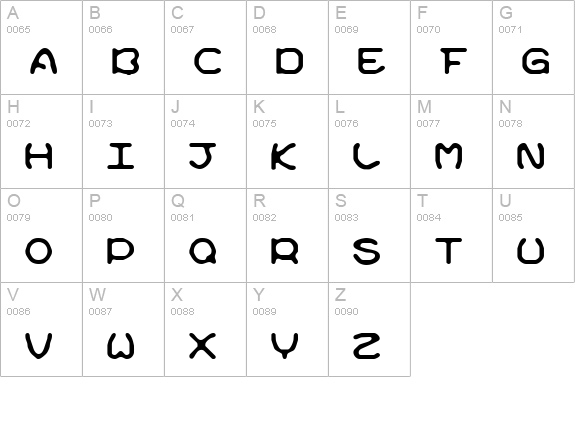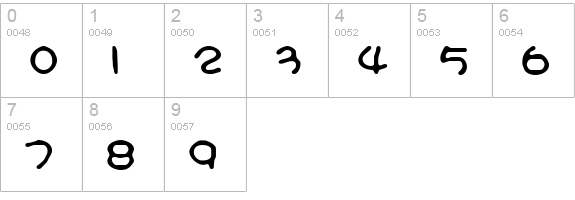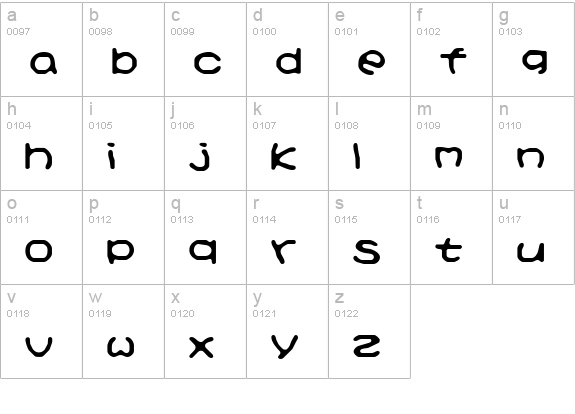
Kirby No Kira Kizzu BRK Font Details
Kirby No Kira Kizzu BRK font is a delightful and whimsical typeface that exudes charm and playfulness. Its rounded edges and bubbly characters give it a lighthearted and friendly appearance, making it perfect for projects that require a touch of innocence and joy. This font is not only visually appealing but also incredibly versatile. Its clear legibility ensures that your message will be communicated effectively, whether it is used for headlines, titles, or body text. The unique design of Kirby No Kira Kizzu BRK font adds a distinctive and memorable touch to any design, making it stand out from the crowd. One of the best things about Kirby No Kira Kizzu BRK font is that it is free! That's right, you can download this amazing font without spending a dime. It is freely available to download at FontsMarket.com, a trusted source for high-quality fonts. Whether you're working on a personal project, a professional design, or just looking to add some fun to your typography, Kirby No Kira Kizzu BRK font is the perfect choice. Its free availability, combined with its playful and versatile design, makes it a must-have for any font library. So why wait? Head over to FontsMarket.com and download Kirby No Kira Kizzu BRK font today!